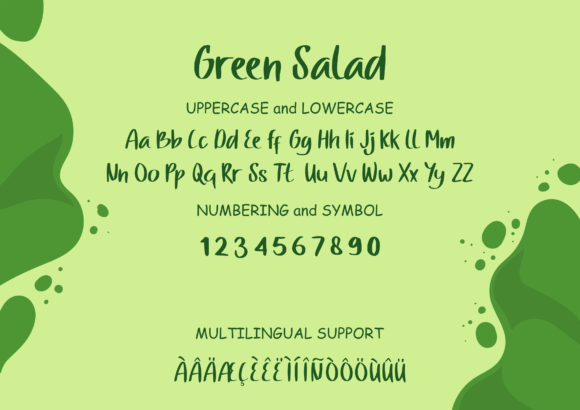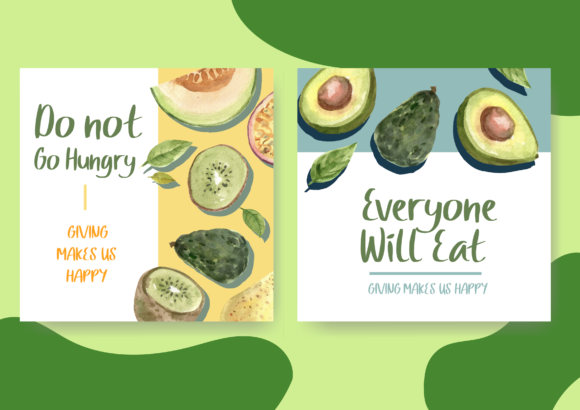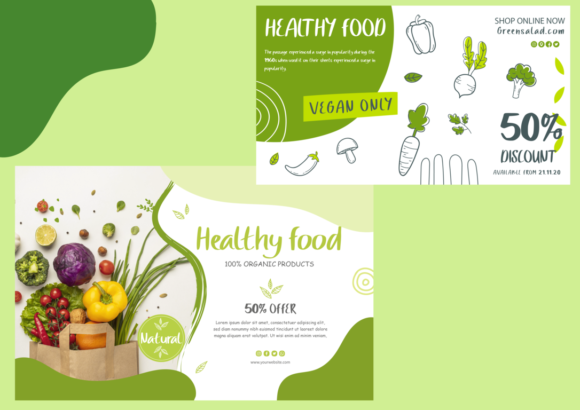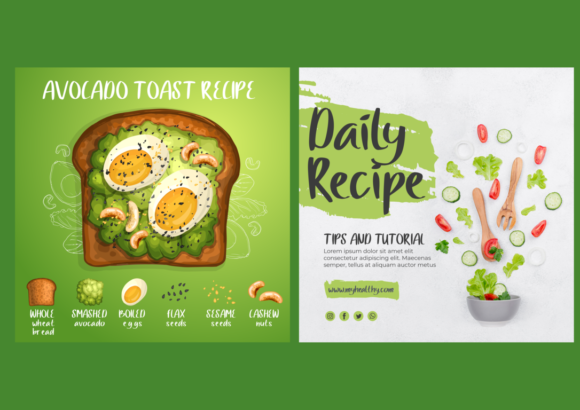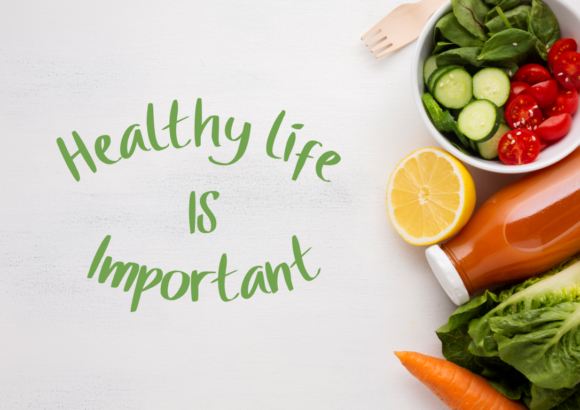
Introduction to Green Salad Font
Green Salad is a lovely and delicate script font that exudes elegance and class.
This font was particularly crafted for those who need a beautiful and refreshing look to their designs .
Key Features of Green Salad Font
Why Choose Green Salad Font?